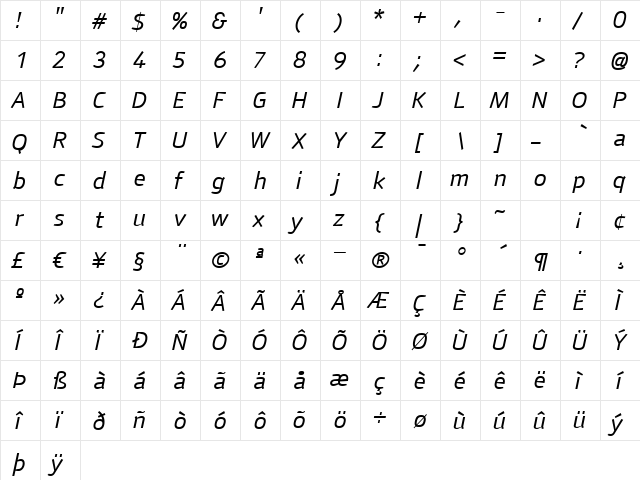
Anomoly Italic
Design Context for Anomoly Typeface
Anomoly is a composed and adaptable typeface that performs quietly and consistently across a wide range of design contexts. The slanted form adds forward momentum and visual energy.
Pro Tip: Use Anomoly for emphasis, pull quotes, and subheadings where its slanted energy can add rhythm to the layout.